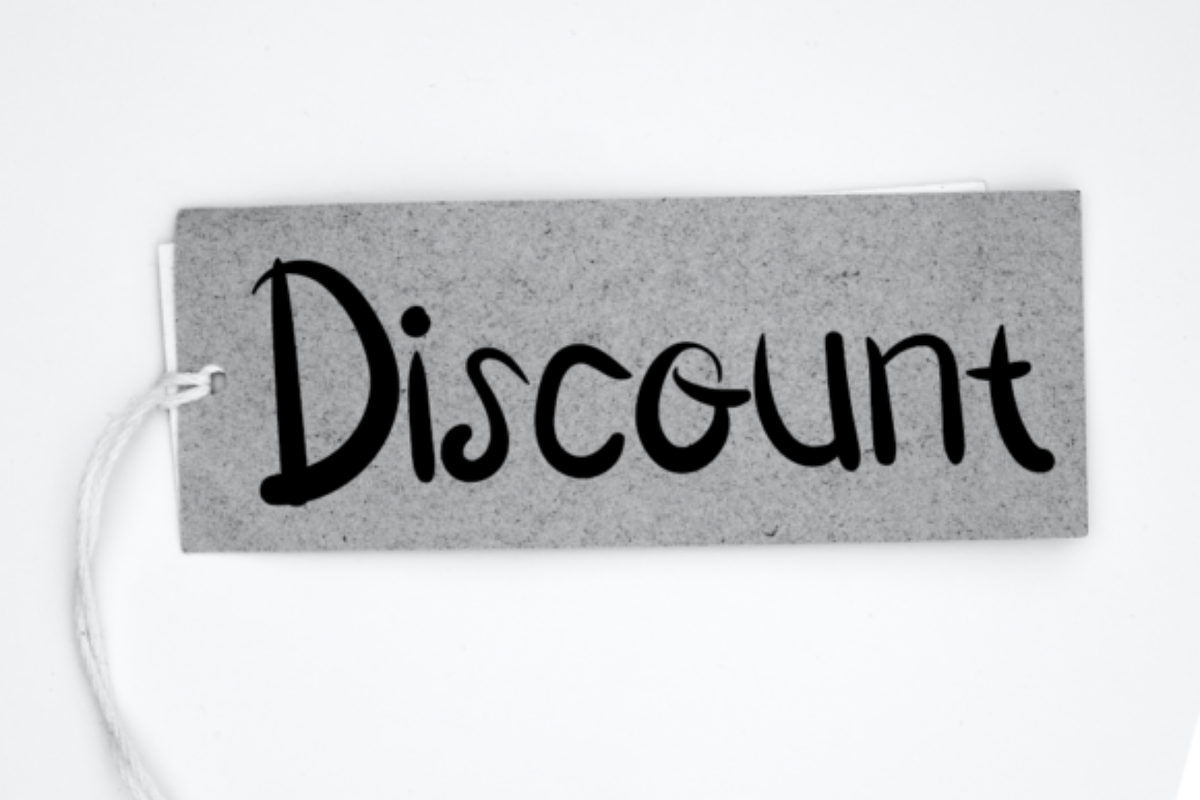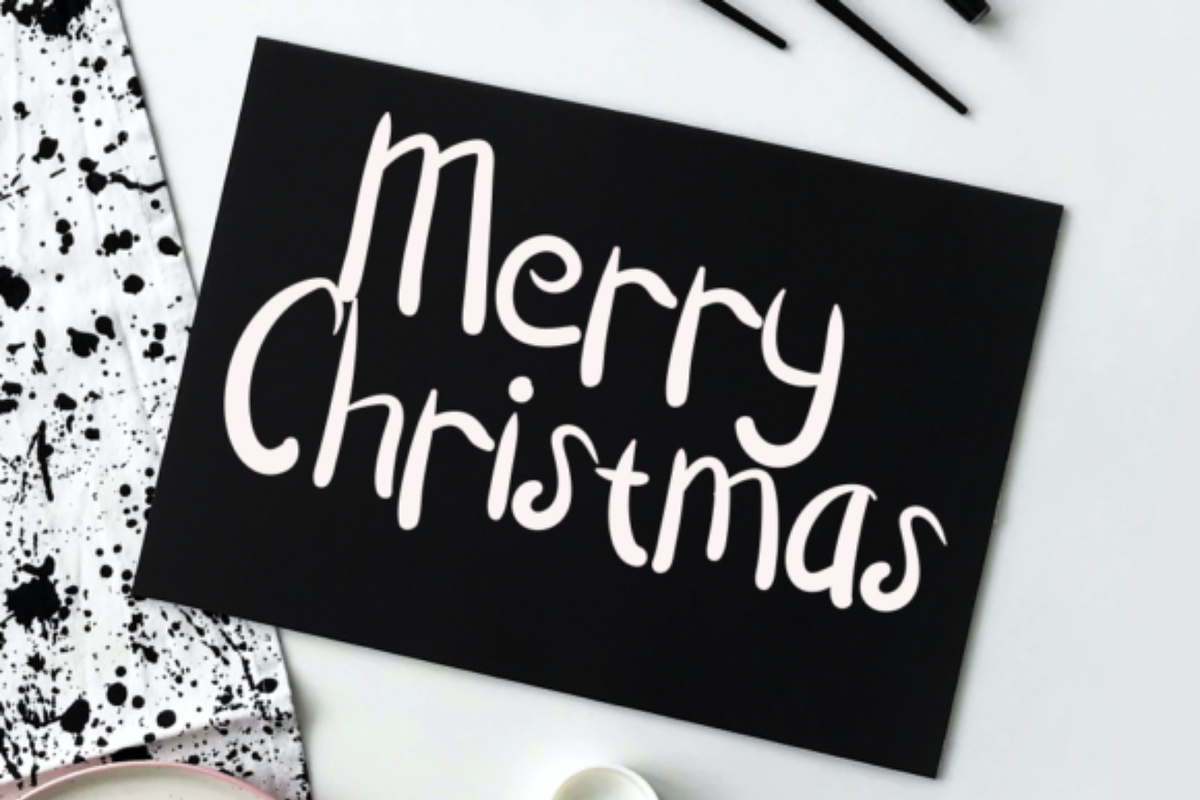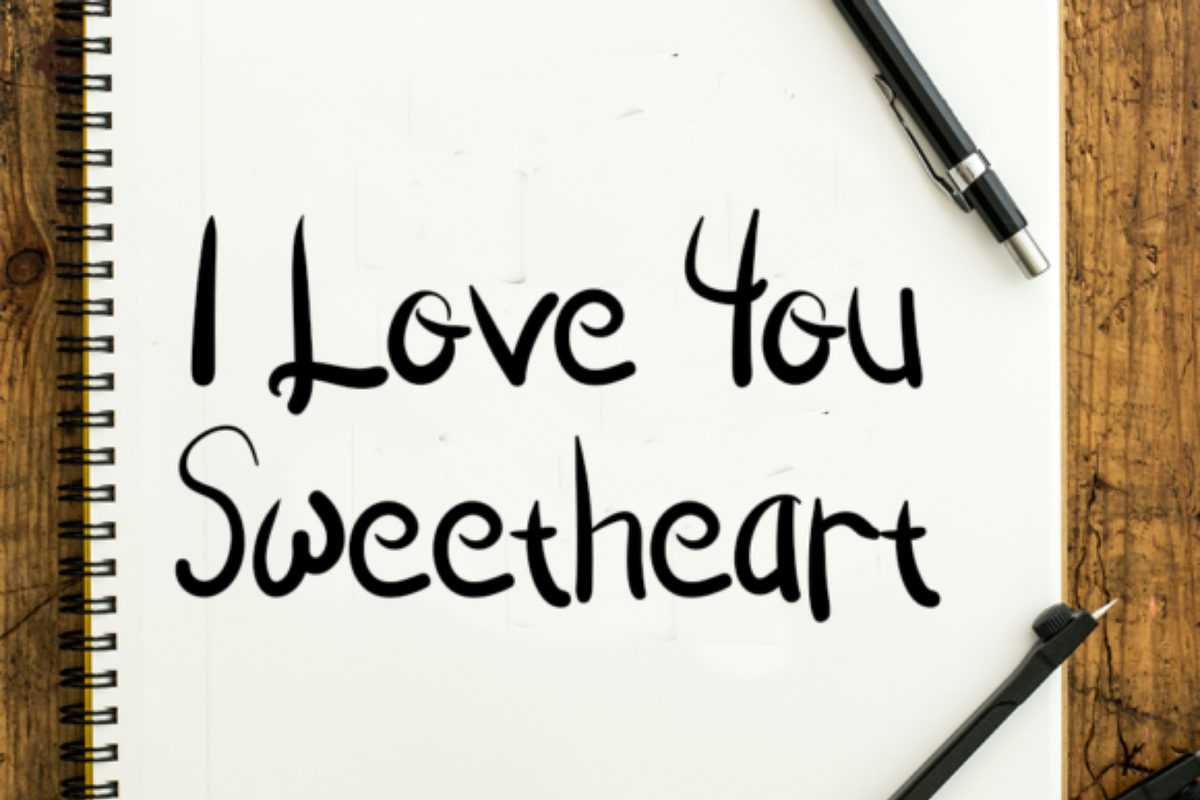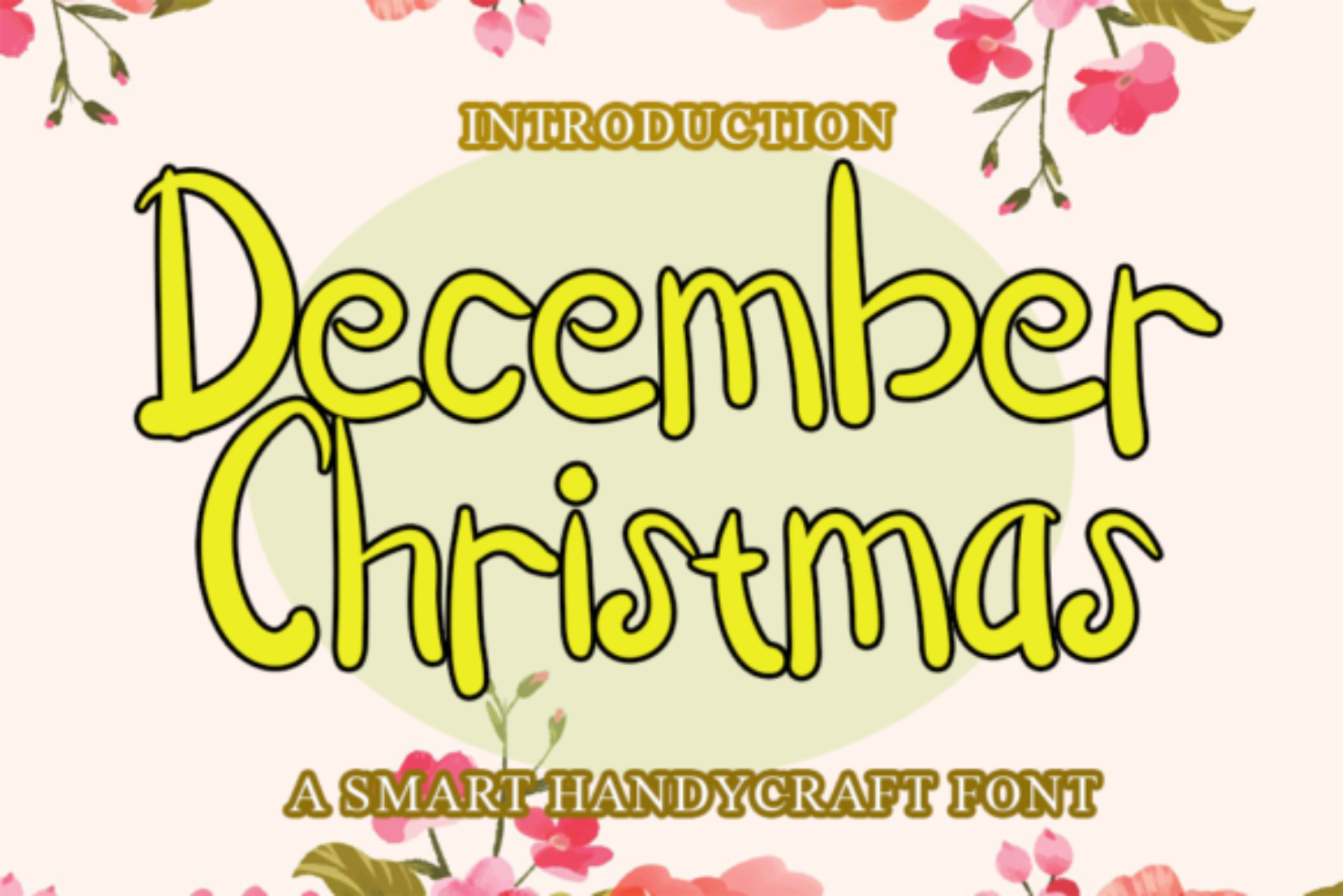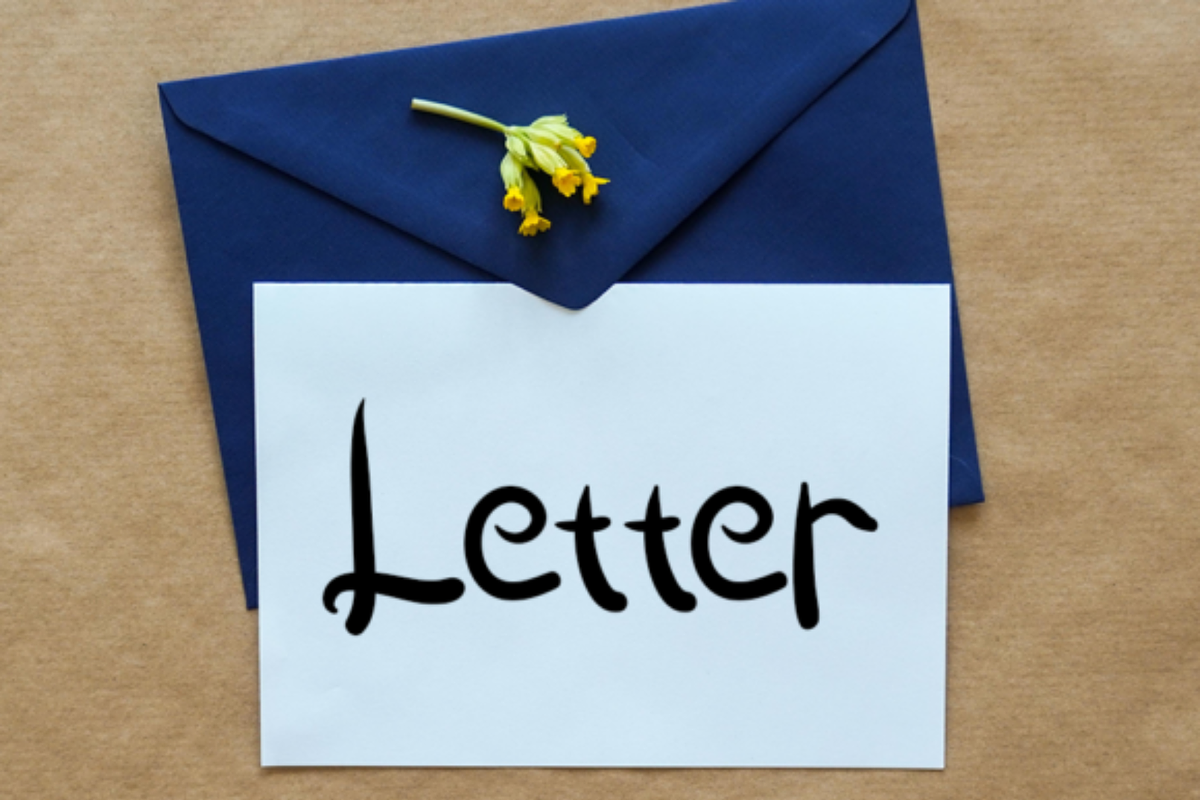
December Christmas Font
December Christmas is a natural and simple handwritten font. Whether you’re using it for crafting, digital designing, presentations or greeting cards making, it’s perfect!